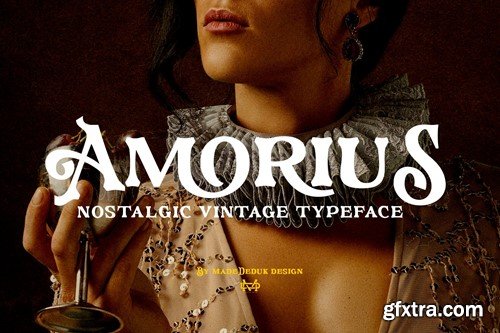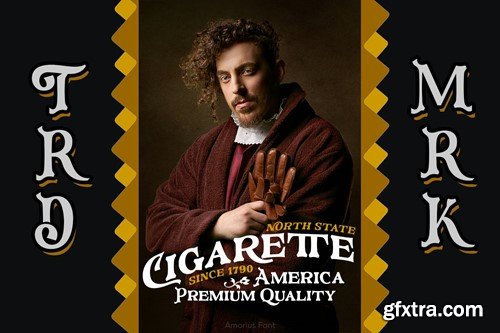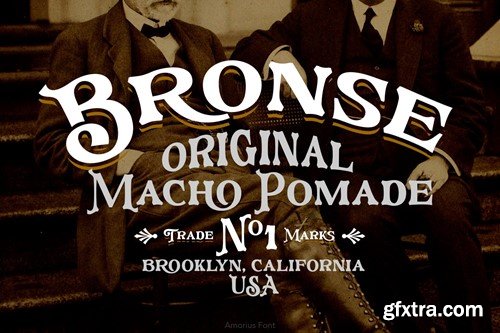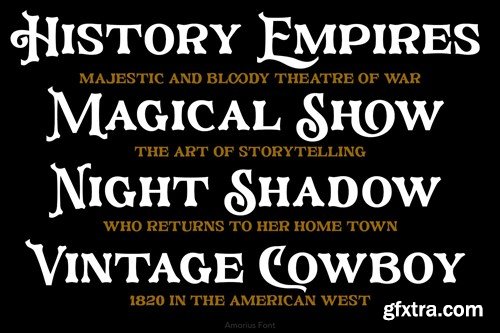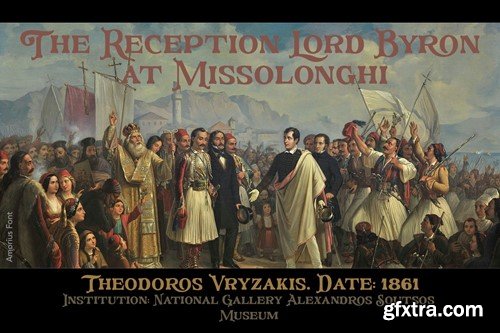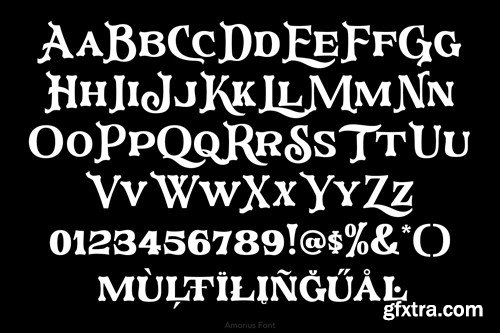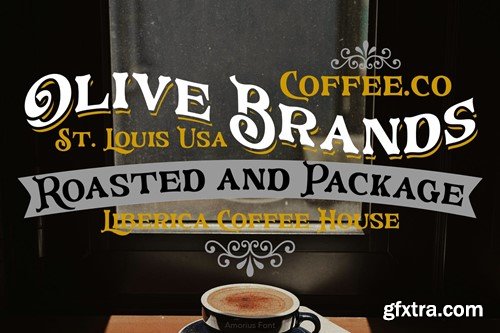
Amorius Vintage Font 28VL4TB
Amorius Vintage Font
Amorius is a serif vintage font, come with single weight, legible and expressive shapes. You can explore and combine creating rhythm for comfortable reading. A lot of stylish alternates characters will makes this font suitable for your any project design.
Feature
• Number & Symbol
• International Glyphs
• Multilingual support
• Alternative
• Ligature